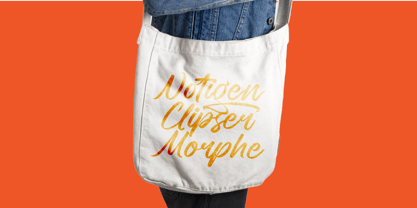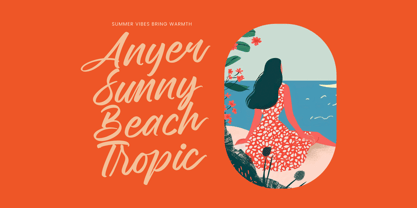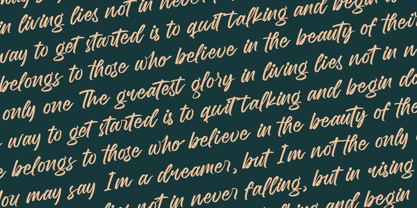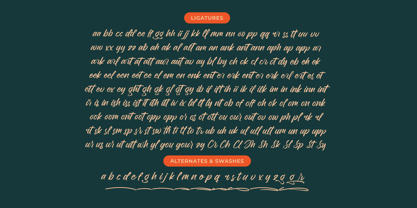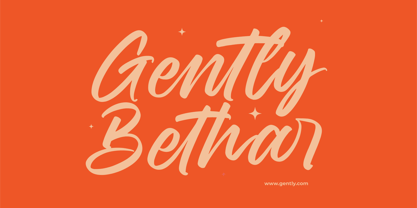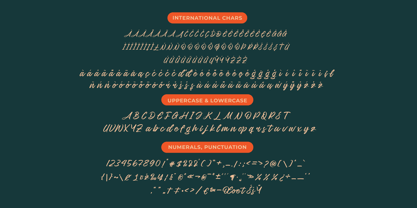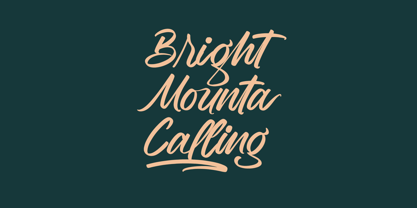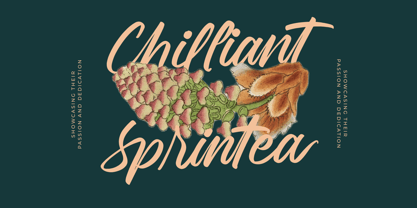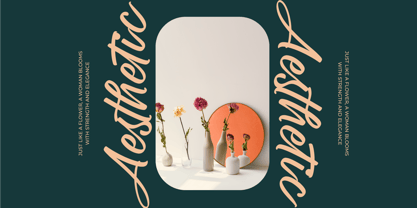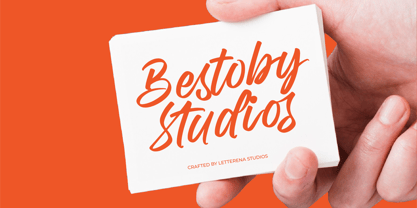
Jhapota Magrelo
by Letterena Studios
The Jhapota Magrelo Font Family was designed by Heru Utama Putra and published by Letterena Studios. Jhapota Magrelo contains 2 styles and family package options. More about this family
Jhapota Magrelo - Bold Handwritten Font , from Letterena, is a Luxury Script font, suitable for any projects such as: logos, branding projects, homeware designs, product packaging, mugs, quotes, posters, shopping bags, t-shirts, book covers, name card, invitation cards, greeting cards, label, photography, watermark, special events, and all your other luxury and beautiful projects that need a Luxury Script taste.